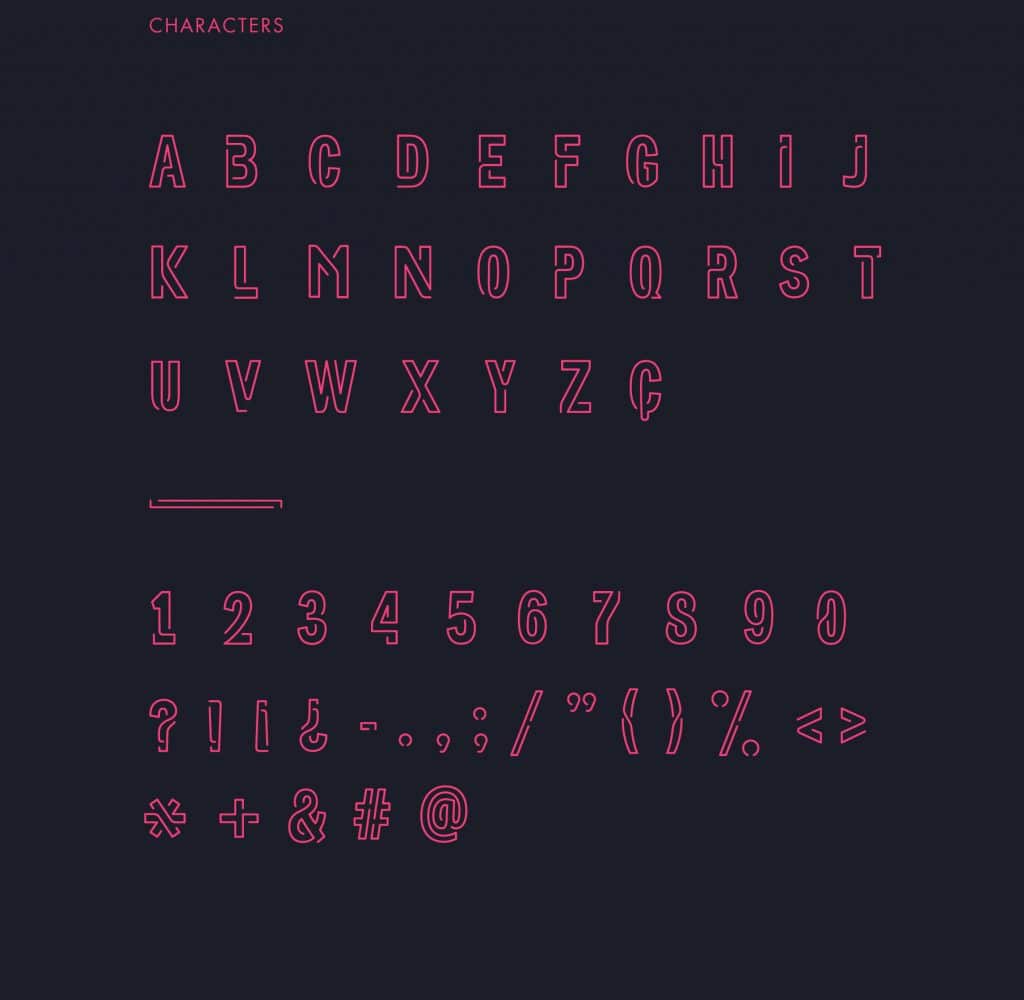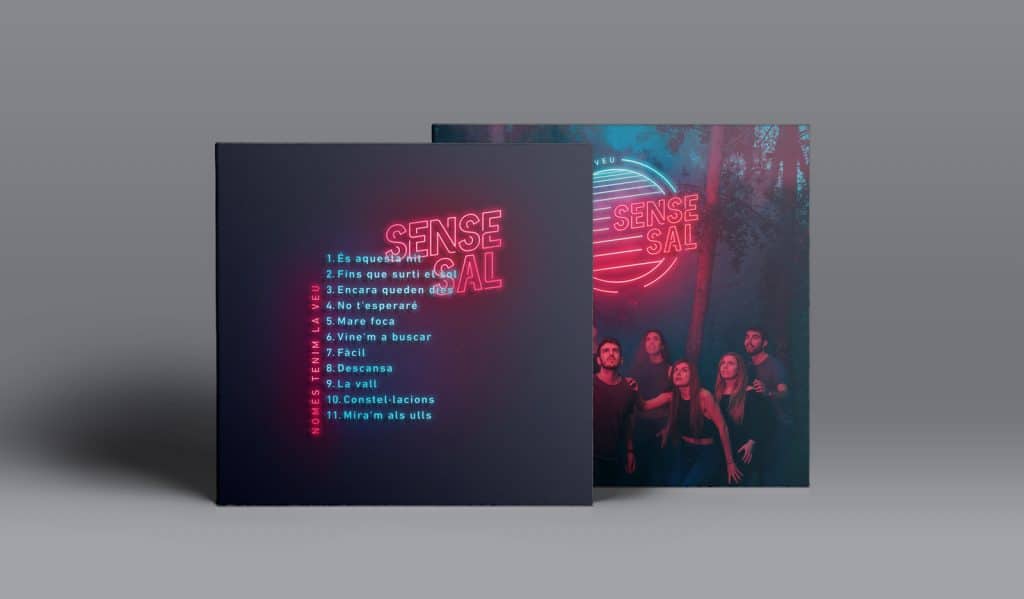
Free Font Friday: NeoNeon
NeoNeon is a new font by Barcelona-based Bakoom Studio. NeoNeon is a fresh and fashionable display type inspired by 80’s neon signage. The font can be used as all neon or not, making it adaptable for use in a wide range of editorial and design projects. The display type is perfect for clients in entertainment and music and for flyers, posters, brochures, and record and album covers. NeoNeon looks great in bright fuchsia, aqua, electric blue, day-glo orange, and bright jade.